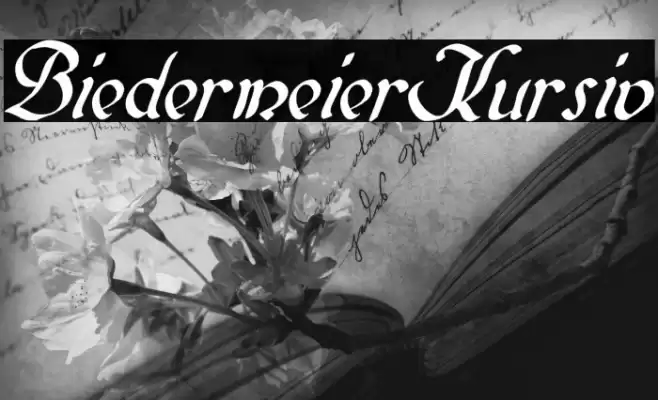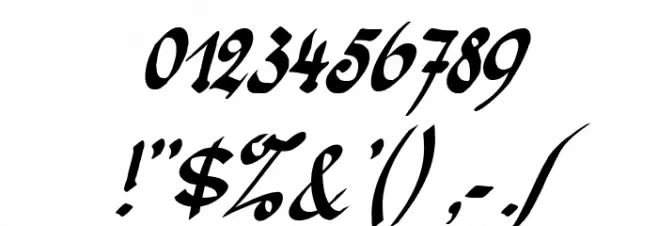
BiedermeierKursiv Font
BiedermeierKursiv Description
This font exhibits a classic and elegant cursive style, characterized by its flowing and interconnected letterforms. The uppercase letters are ornate, with sweeping curves and flourishes that give a sense of movement and grace. The lowercase letters maintain a consistent slant, enhancing the cursive aesthetic while ensuring readability. The numerals are stylized to match the overall script design, with unique features that add to the font's decorative appeal. Special characters are crafted with the same attention to detail, making them suitable for artistic and formal applications.
An elegant cursive font with flowing, interconnected letterforms and ornate details from Uncategorized fonts.
- Proposed Projects: Ideal for wedding invitations, formal event programs, elegant branding, and artistic projects.
- Overall Style: Classic
- Use Case: Logos, Invitations, Decorative text